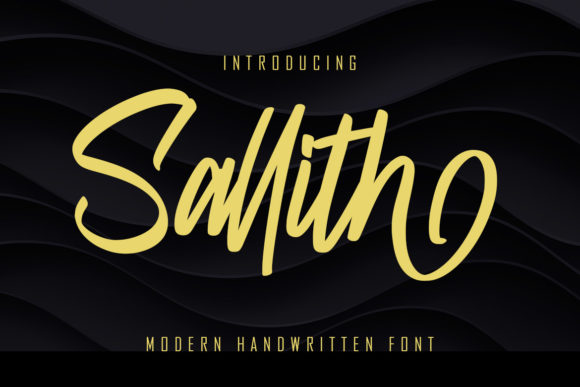
Sallith: A Handwritten Font for Authentic Brands
I still remember the afternoon I sat at my kitchen table, surrounded by stacks of blank cardboard boxes and a roll of packing tape. My small online shop was growing, but something felt off. The products inside were beautiful—hand-poured soy candles with delicate scents—but the packaging looked generic. It lacked soul. I realized that while my customers loved what I made, they didn’t yet feel connected to who made it. That was the moment I decided to overhaul my brand identity, starting with typography.
Choosing the right typeface is often harder than it looks. You want something that feels personal but not messy, professional but not cold. After testing dozens of options, I found Sallith. This sweet and adaptable handwritten font became the missing piece in my visual puzzle. It wasn’t just about picking a pretty script; it was about finding a voice that matched the warmth of my business.
Finding Personality in Every Stroke
Sallith is a Script Handwritten typeface that strikes a rare balance. Many handwritten fonts lean too far into chaos, becoming illegible on small labels, or they feel too rigid, losing that human touch. Sallith, however, flows naturally. Its unique style mimics the rhythm of actual handwriting, with subtle variations that make every word feel intentional and crafted.
For a small business owner, this matters immensely. When a customer receives a package, the first thing they see is the label. If the text looks like it was written by a machine, the connection feels transactional. But when you use a font like Sallith, it feels like a note from a friend. The mood is inviting, friendly, and approachable. It tells your audience that there is a real person behind the brand who cares about the details.
From Social Media to Packaging: Real-World Applications
Once I integrated Sallith into my design workflow, the versatility surprised me. I didn’t just use it for one thing; it became the backbone of my entire visual presence. Here is how I applied it across different areas of my business:
- Product Labels: I used Sallith for the scent names on my candle jars. Because the font is PUA encoded, accessing special glyphs and alternates was seamless. This allowed me to add little decorative flourishes that made each label look unique.
- Social Media Graphics: Consistency is key on platforms like Instagram. I started using Sallith for quote overlays and promotional headers. It stood out against clean background images, stopping users from scrolling past my posts.
- Thank-You Cards: Every order includes a small card. Printing my message in Sallith made the note feel personal, even though it was printed. Customers often mention these cards in their reviews, noting how "thoughtful" the unboxing experience felt.
- Website Banners: On my homepage, I used larger sizes of the font for welcome messages. It softened the look of the site, making it feel less like a corporate store and more like a boutique studio.
The adaptability of Sallith means it fits a large pool of designs. Whether you are running a bakery, a beauty brand, or a coaching service, this font can elevate your materials without overwhelming them.
Why Typography Builds Trust
Many entrepreneurs underestimate the power of brand identity. We focus on logos and colors, but typography is the vehicle that delivers your message. Poor typography can make a business look amateurish, while a well-chosen premium font signals quality and attention to detail.
When I switched to Sallith, my brand perception shifted. Customers began describing my shop as "polished" and "cohesive." This isn’t magic; it’s psychology. Clean, consistent, and aesthetically pleasing visuals reduce cognitive load for the buyer. They don’t have to work hard to understand your brand because the visual cues are clear. Sallith helps create that sense of trust. It looks professional enough for commercial use but retains the charm of a creative font.
Pairing and Readability Tips
One common mistake beginners make is using a script font for everything. While Sallith is beautiful, it works best as a display font or for short phrases. For longer paragraphs, such as product descriptions or ingredient lists, you need a partner.
I recommend pairing Sallith with a clean sans serif font. The contrast between the organic curves of the handwritten script and the geometric stability of a sans serif creates a modern, balanced look. For example, I use Sallith for the header "Hand-Poured with Love" and a simple sans serif for the safety warnings and weight details below it. This ensures readability on small labels and mobile screens.
If you are designing for print, always test your sizes. Sallith remains legible at smaller sizes compared to many other scripts, but it still needs breathing room. Avoid crowding letters together. Let the natural spacing of the font do the work. For digital ads and social media thumbnails, keep the text short and impactful. A single word or a two-word phrase in Sallith can be more powerful than a full sentence.
Ultimately, upgrading to a font like Sallith is an investment in your brand’s future. It transforms everyday materials—from menus to merchandise—into memorable touchpoints. It helps you stand out in a crowded market by offering a visual experience that feels human, warm, and authentic. If you are ready to make your business look more consistent and polished, exploring the possibilities of this versatile typeface might be the simplest step you take this year.